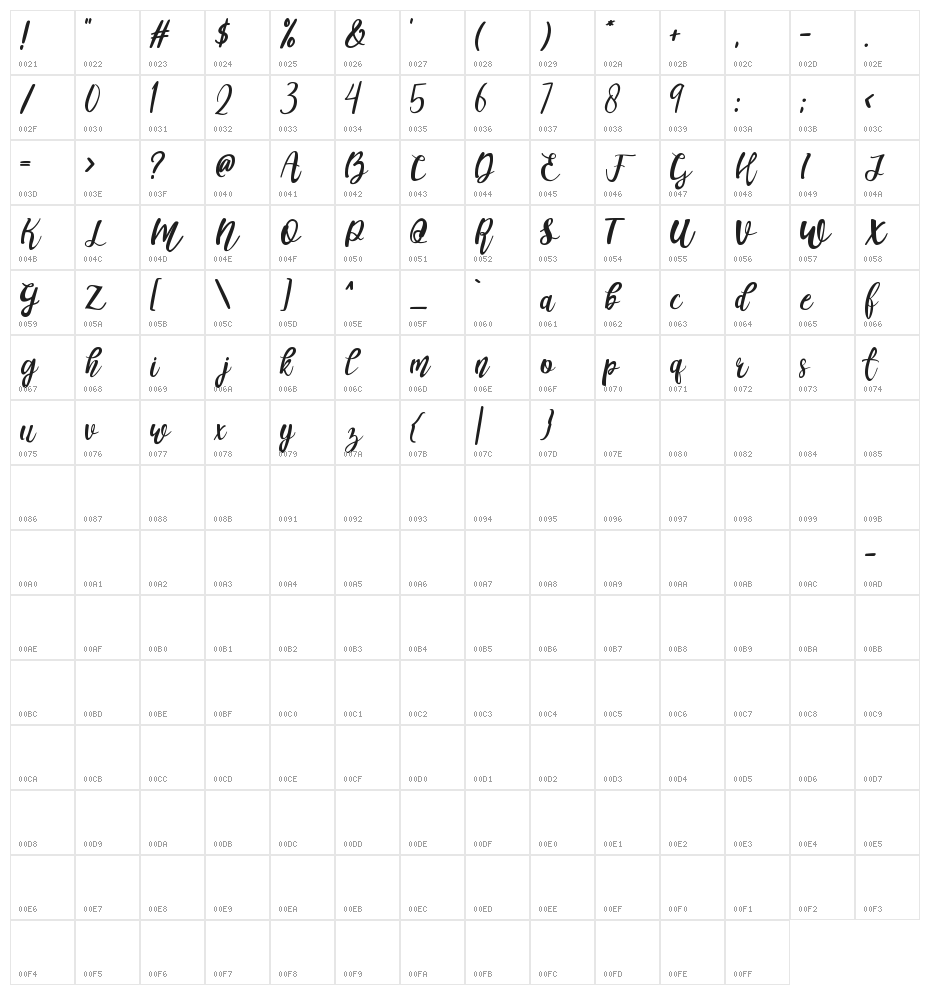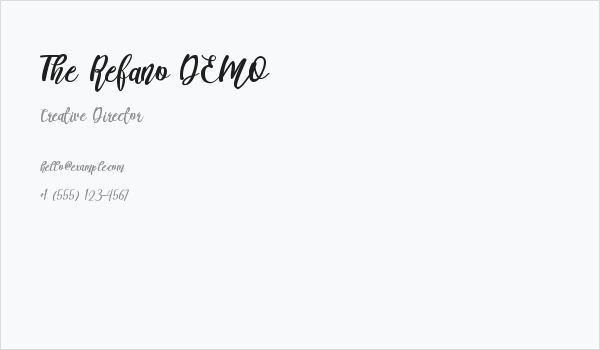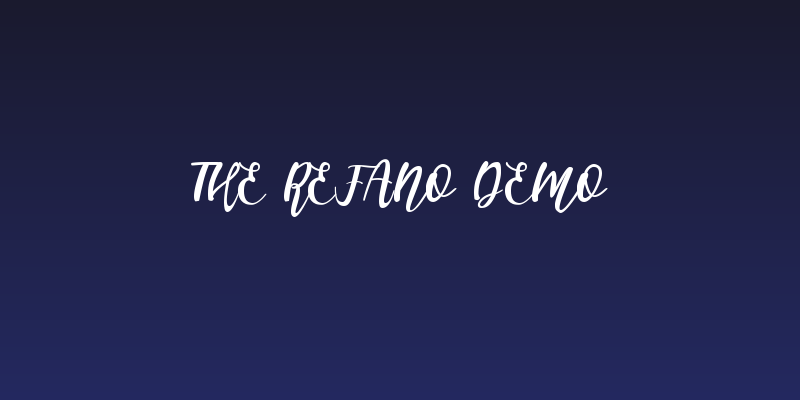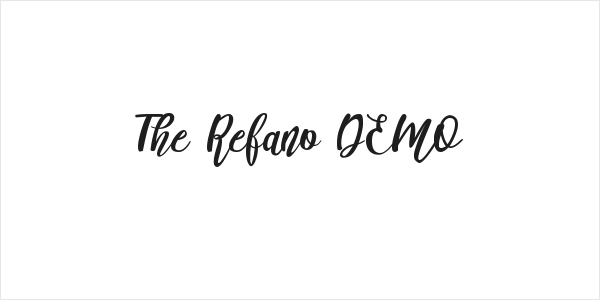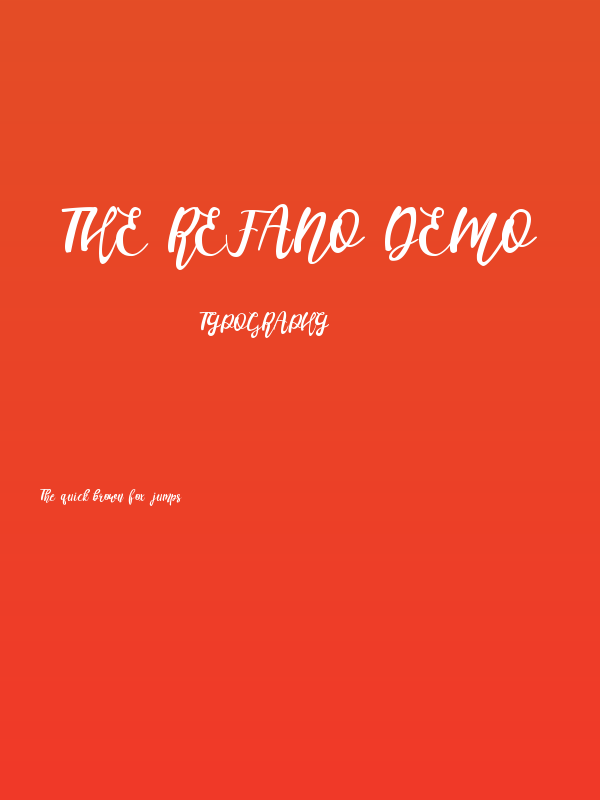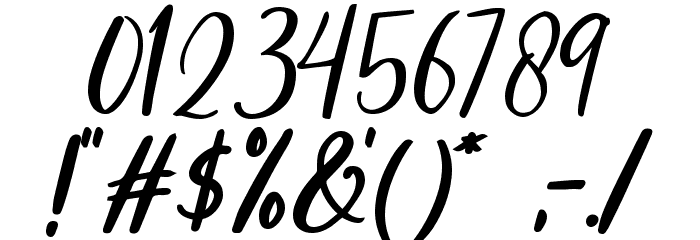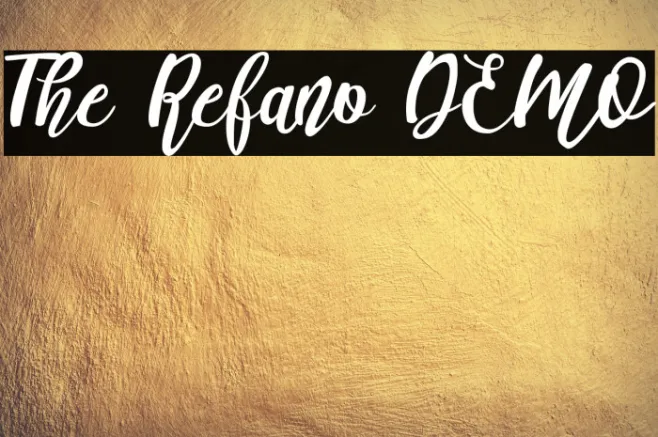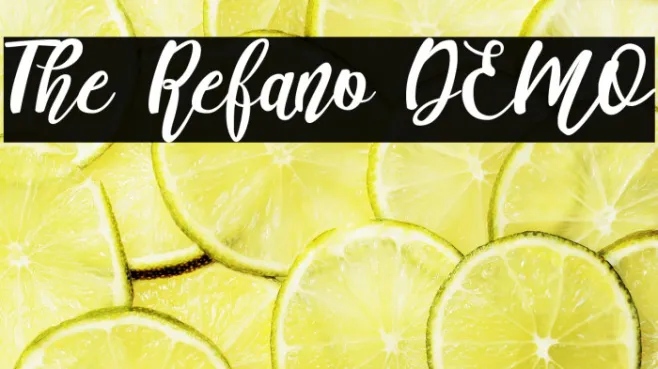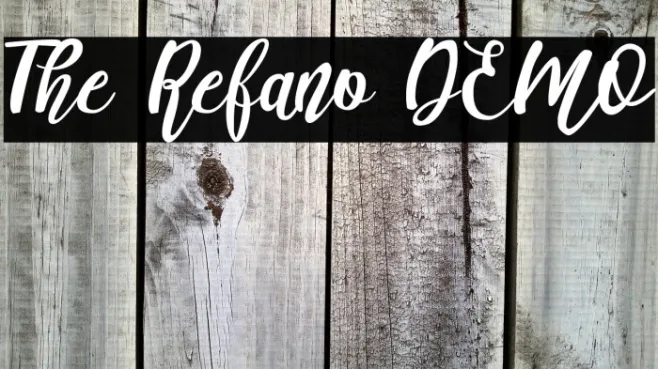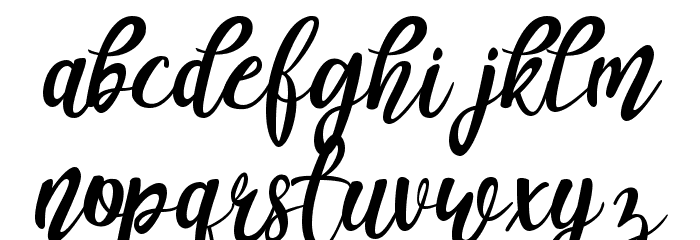
The Refano DEMO Font
The Refano DEMO Description
This font features a flowing, cursive style with a modern flair. The characters are interconnected, creating a seamless and elegant appearance. The strokes are bold and expressive, with a consistent thickness that adds to the font's readability. The uppercase letters are slightly larger and more pronounced, while the lowercase letters maintain a smooth, continuous flow. The numerals and special characters are designed to match the overall aesthetic, ensuring a cohesive look across all text. This font is perfect for projects that require a touch of sophistication and style.